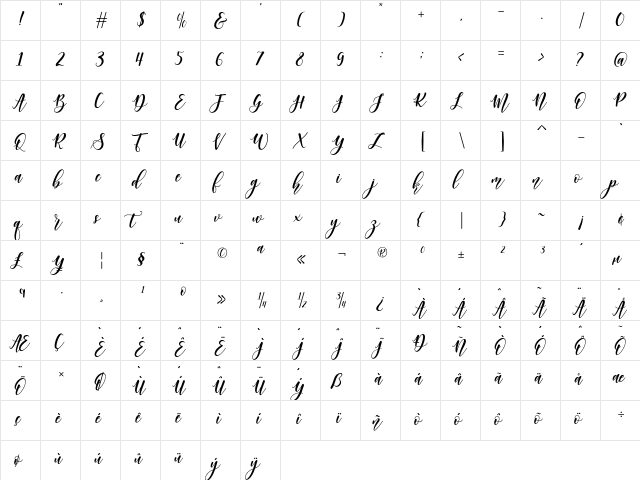
Margetta Free Version Regular
| Foundry | Jamalodin |
| Designer | Jamalodin |
Design Context for Margetta Free Version Typeface
Margetta Free Version is a composed and adaptable typeface that performs quietly and consistently across a wide range of design contexts.